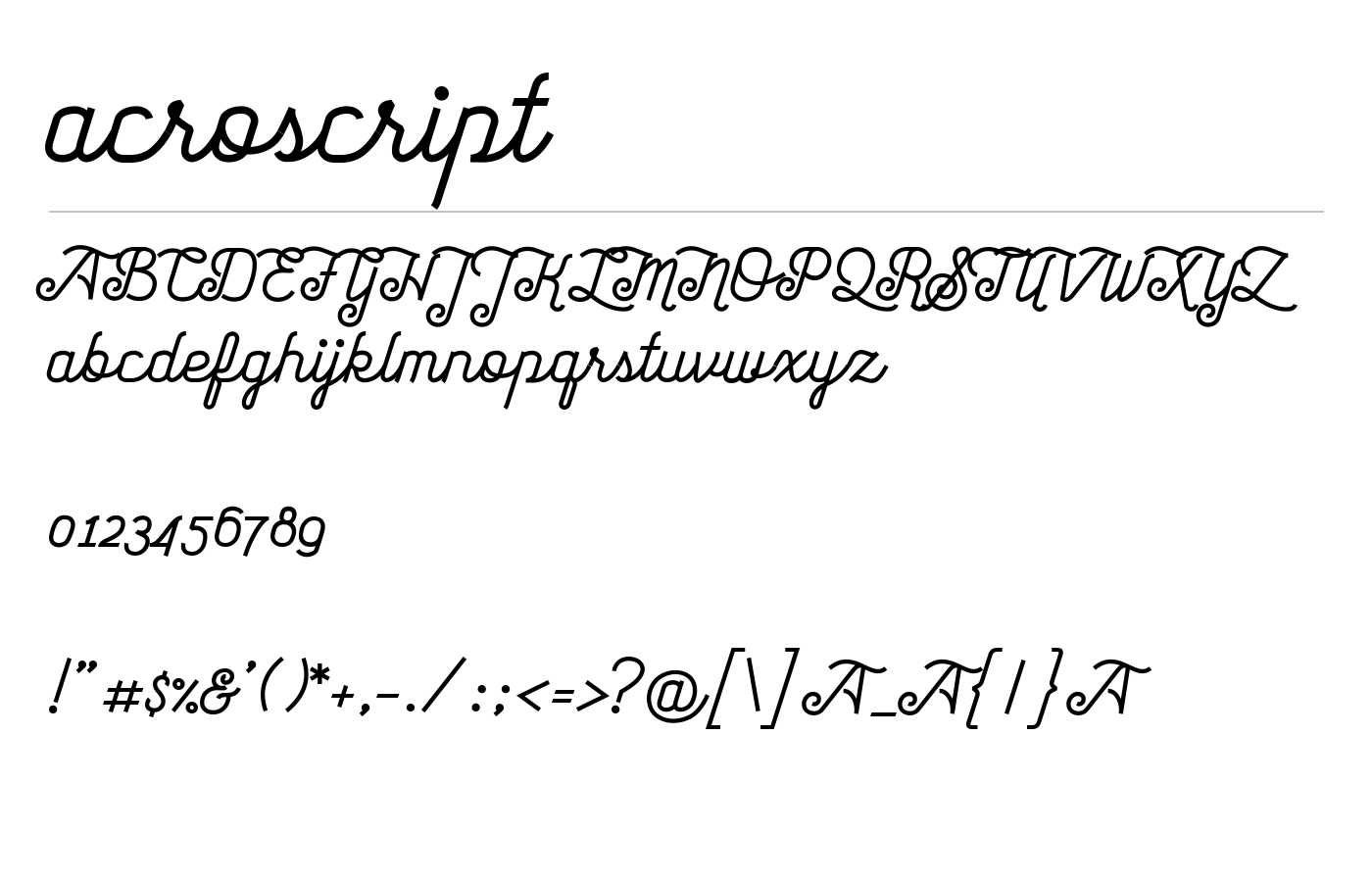
Acroscript is a graceful, handwritten script font with a light weight and elegant, flowing letterforms that create a refined and artistic feel. Its slender strokes and slight slant give it a sophisticated yet approachable style, making it perfect for invitations, branding, and any design needing a personal, stylish touch. This font works best in display uses where warmth and creativity are desired.
acroscript Font
About acroscript Font
| Font family | acroscript Font |
| Designer | Muhammad Jauhar Azmi |